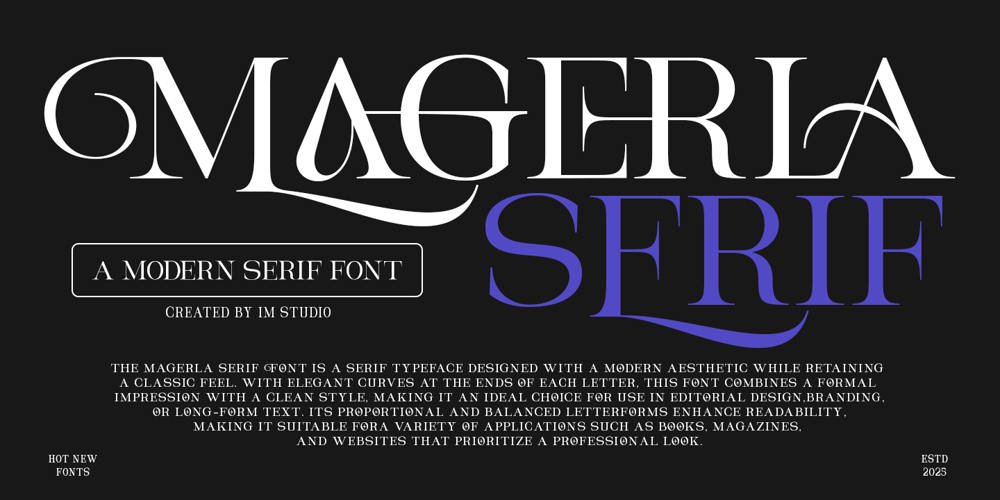
Magerla Serif Font Family was designed by Ikhsan Maulana and published by IM Studio. Magerla Serif contains 2 styles and family package options. Magerla Serif is an elegant and charming typeface that combines classic beauty with a modern twist. Its design features gentle curves and graceful letterforms, creating a harmonious and captivating visual flow. I have enhanced Magerla Serif with a variety of carefully designed ligatures and alternate characters, giving it even more ingenuity and creativity in its use. These features add an artistic and luxurious touch to any project, making it a perfect choice for branding, wedding invitations, and editorial layouts. With its timeless charm and perfect balance of modern and vintage details, Magerla Serif is an ideal choice for those looking for a typeface with character and style.